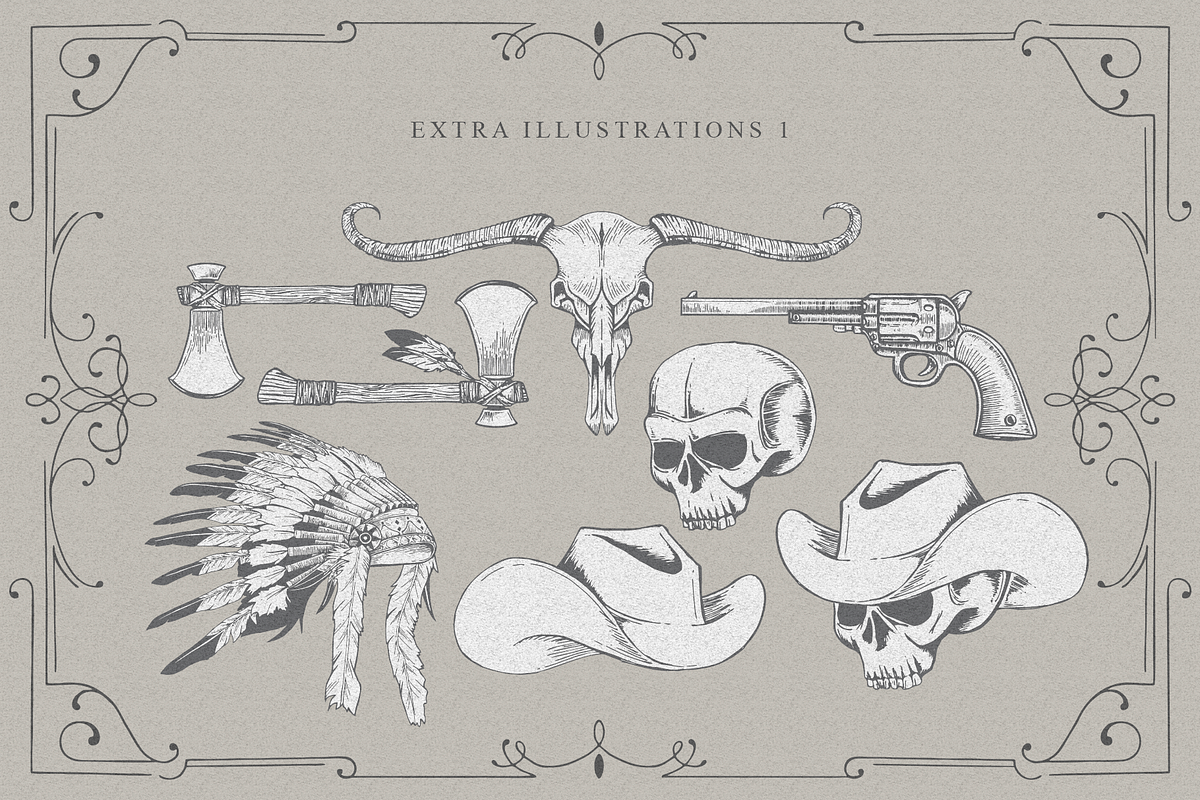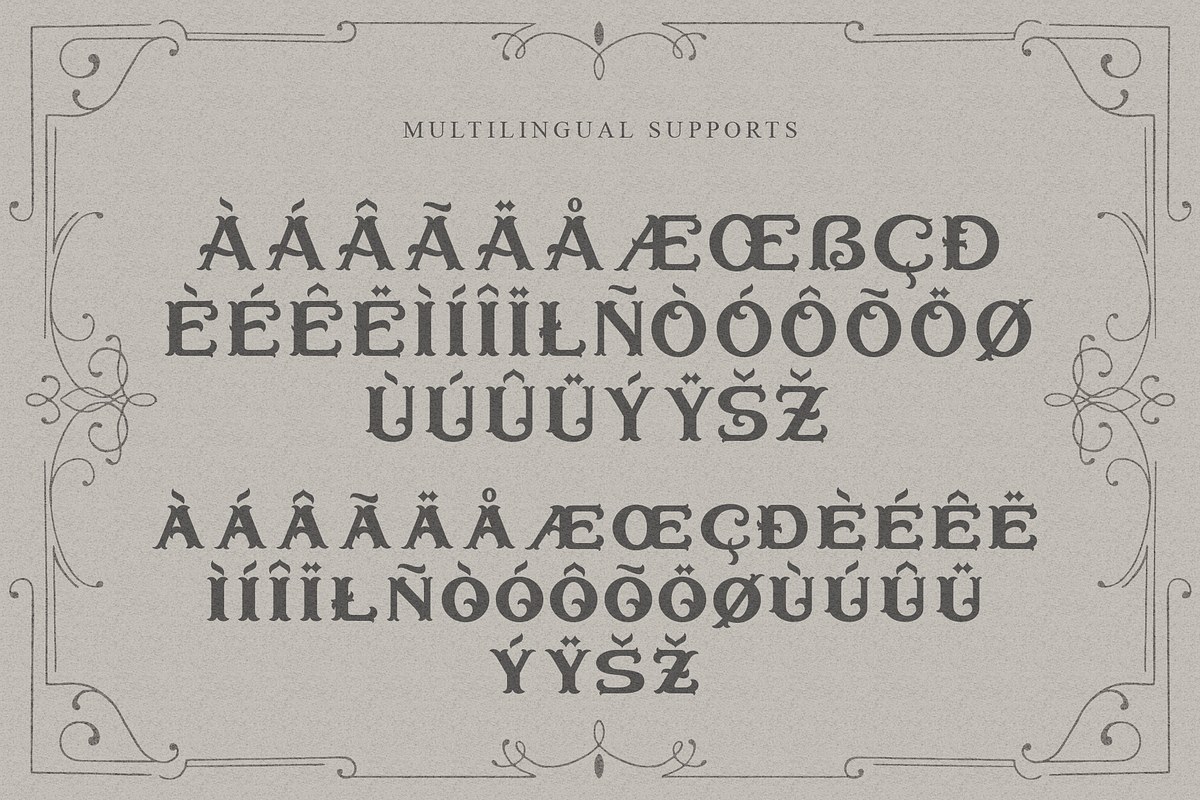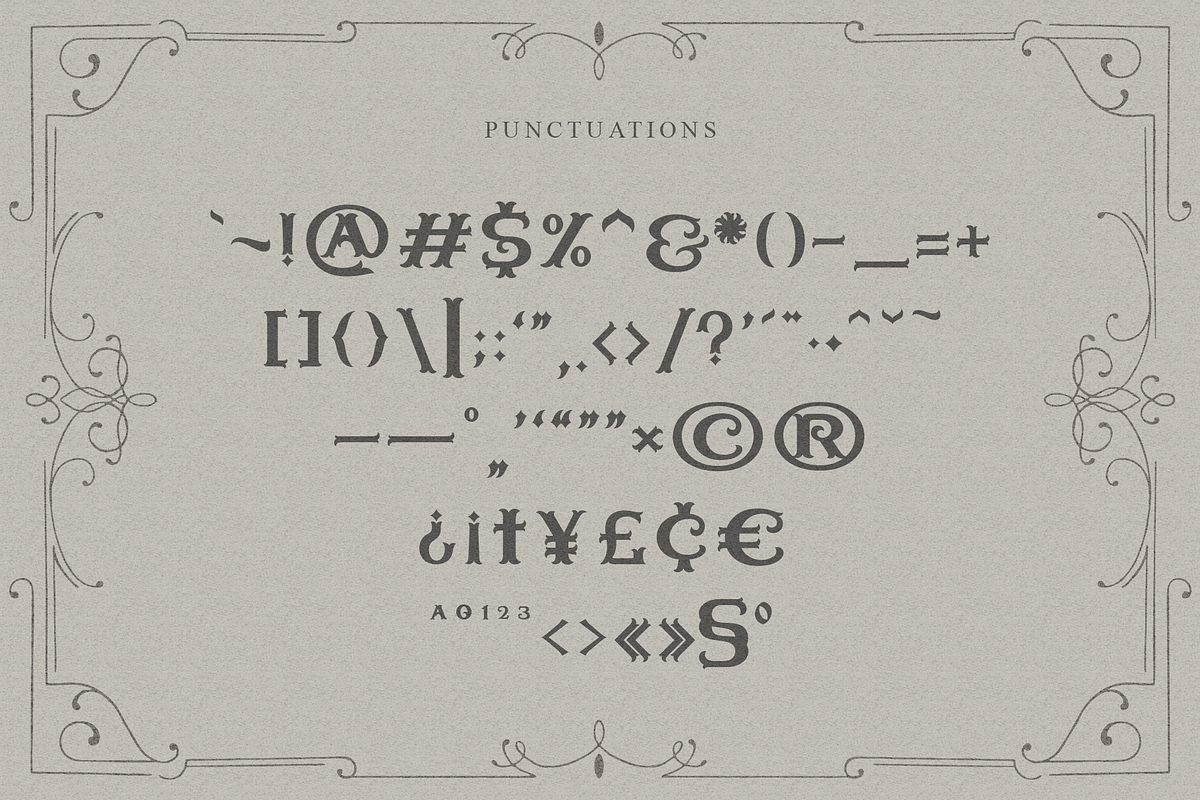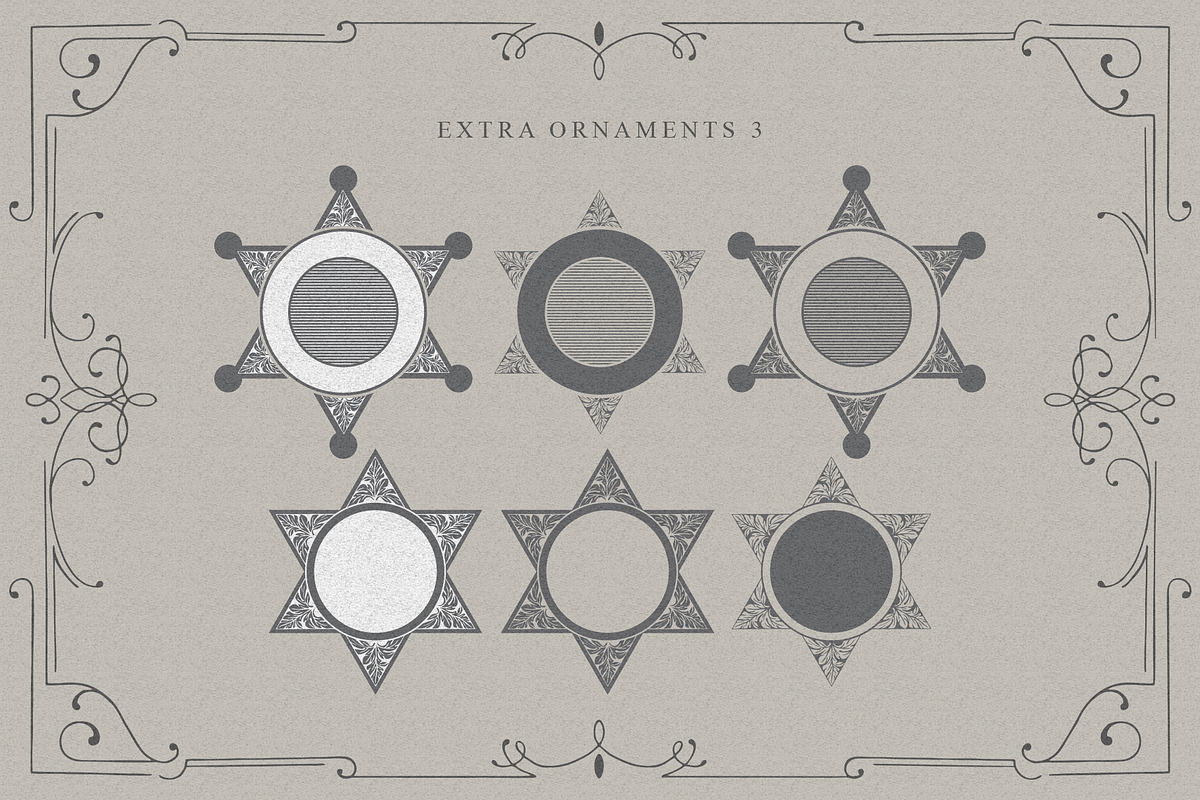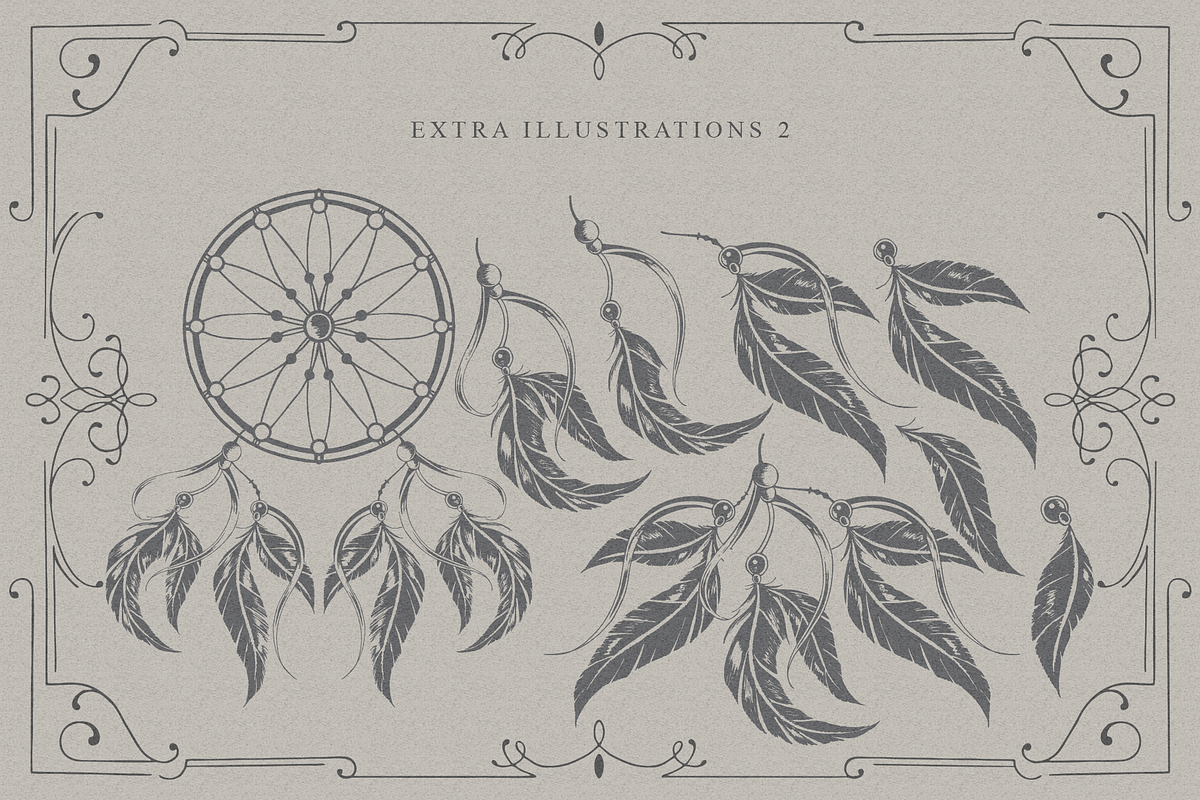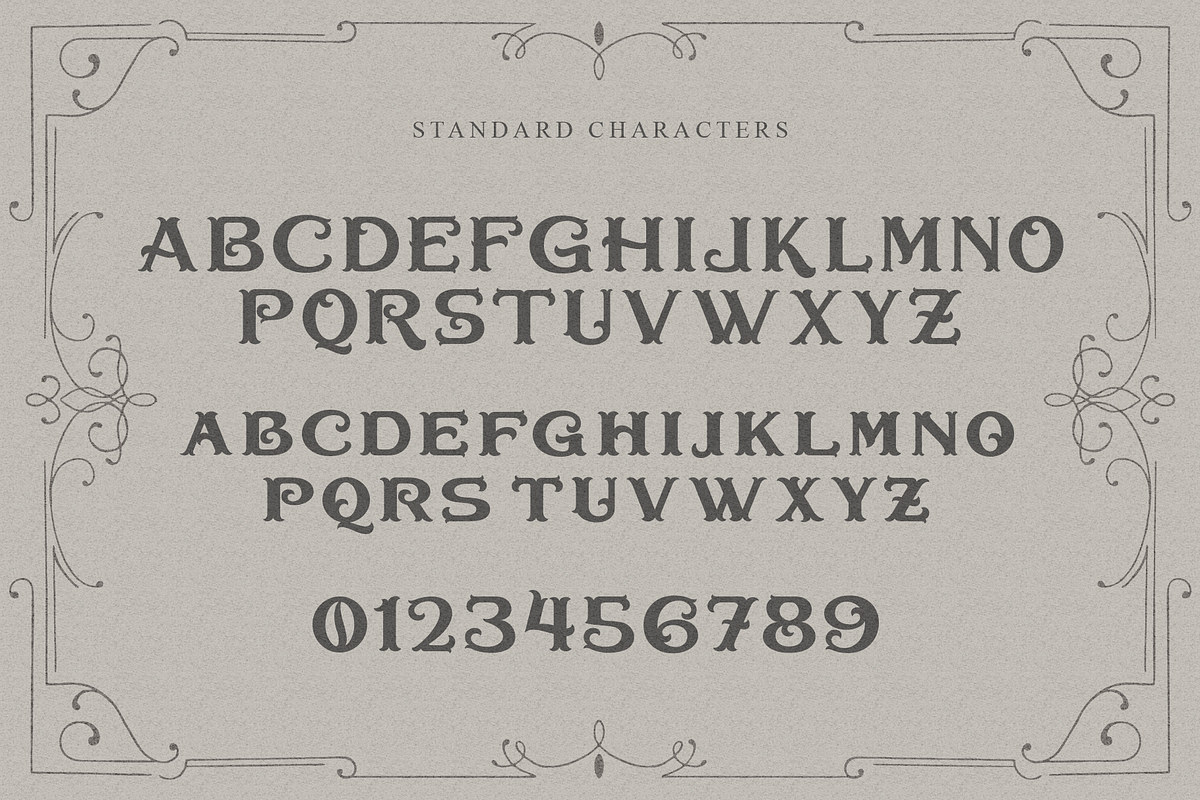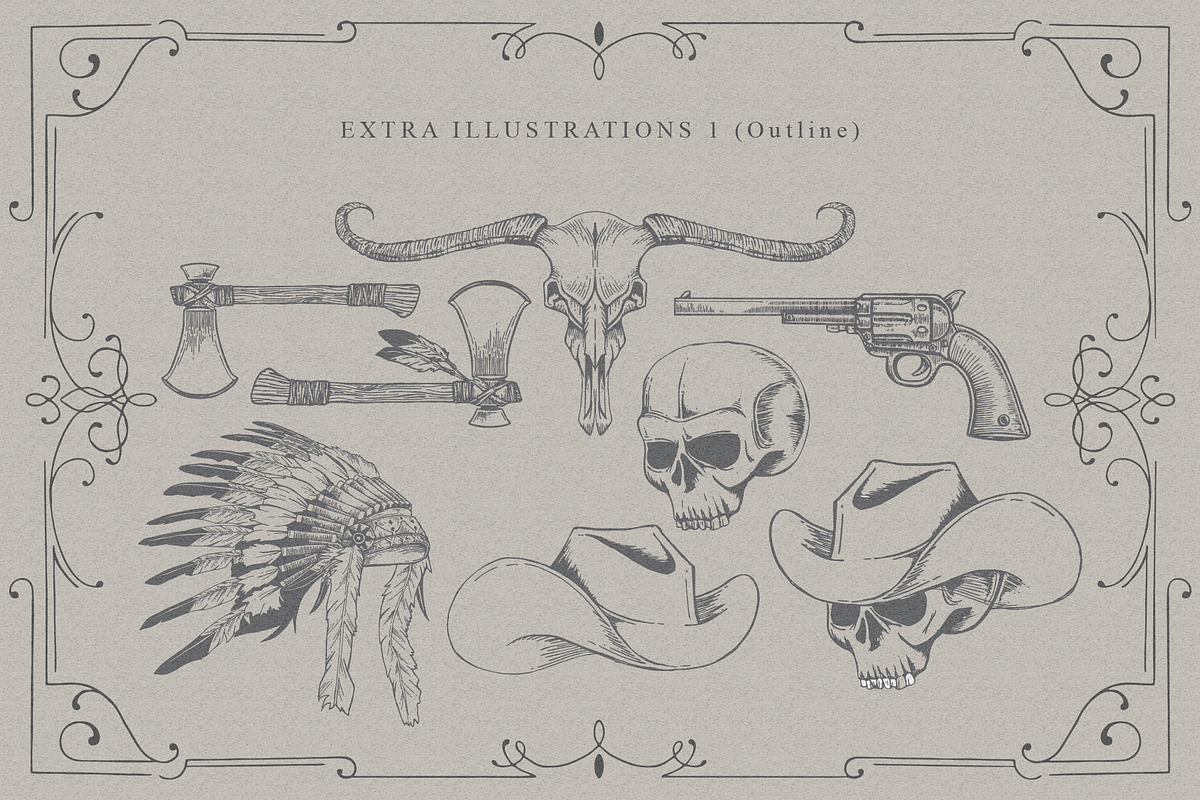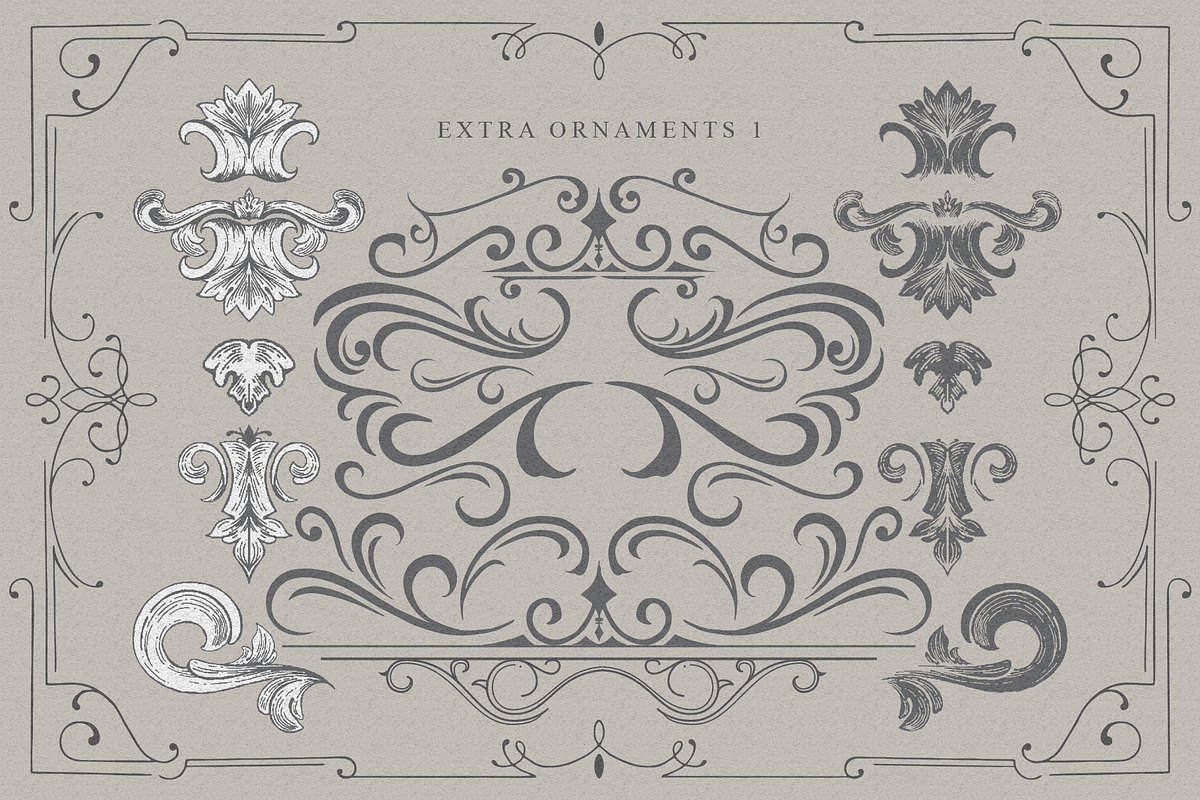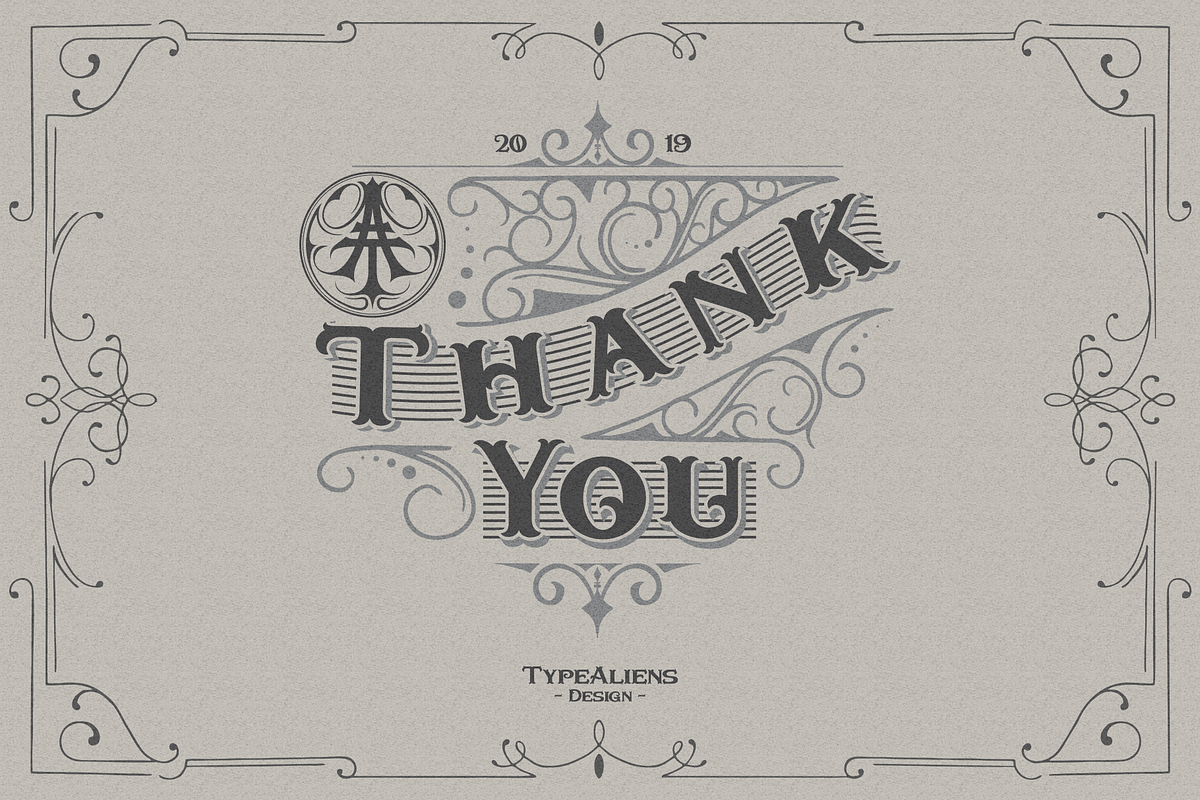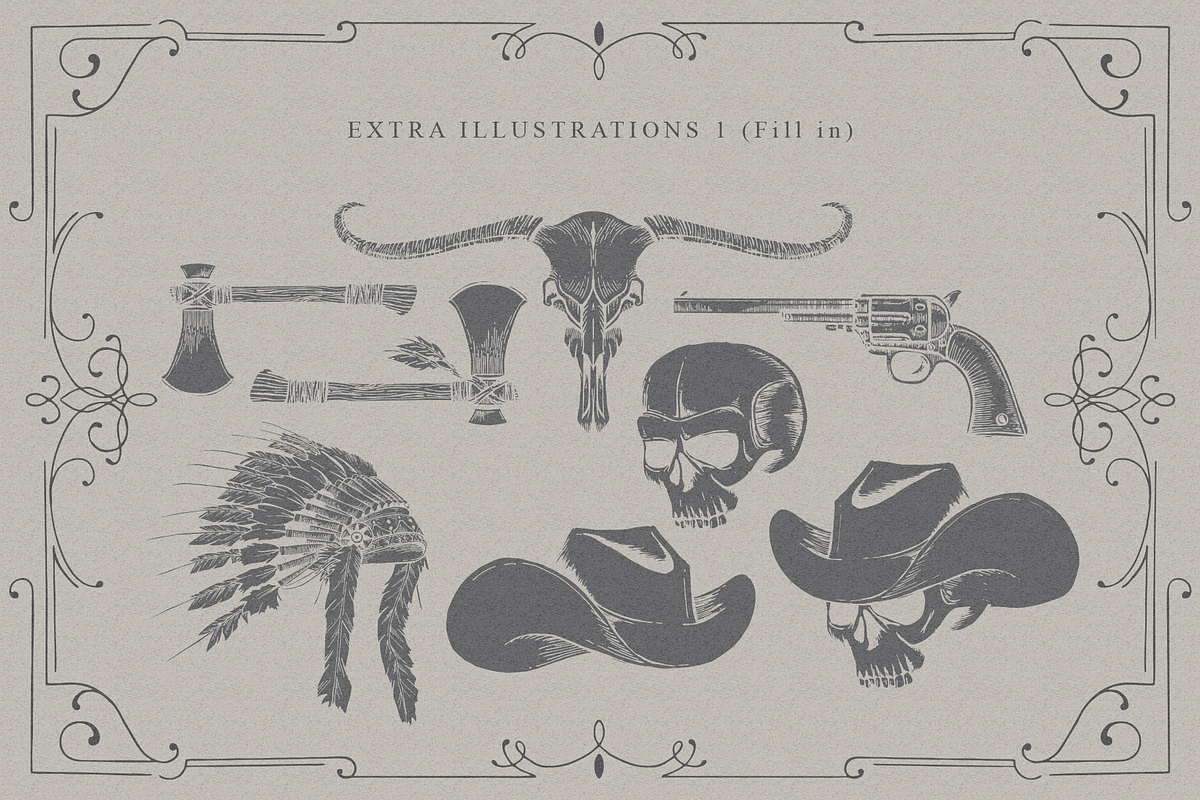
Bullhawk for Logo & Vintage Branding
BULLHAWK
is a display typeface that has a western style with a family of layered letters that can be combined. Consisting of all capital letters which would be very suitable for making a headline on a poster because of its thick and strong nature. Coupled with you can add shadow effects and outlines of the letters family so that it can give a more interesting impression.
Bullhawk is also suitable for making logos, beverage label design, badge designs, t-shirt designs, event and movie poster designs, of course, with a vintage and classic western style.
The Bullhawk family consists of Regular, SemiBold, Outline and Shadows. Also equipped with Numerials, Punctuations and Multilingual Support. And we also add extra ornaments and illustrations as a bonus.
Features : Support Multilingual Characters. Extra Vector Ornaments. Extra Vector Illustrations.